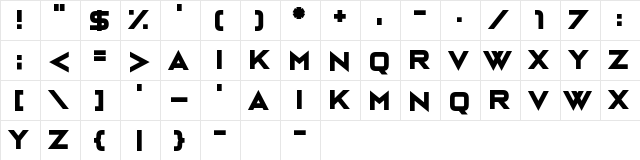
Bonk Robbers Regular
| Designer | Allison James |
Design Context for Bonk Robbers Typeface
Bonk Robbers takes a measured approach to typography — its balanced proportions and neutral character make it a reliable workhorse for both digital and print work.